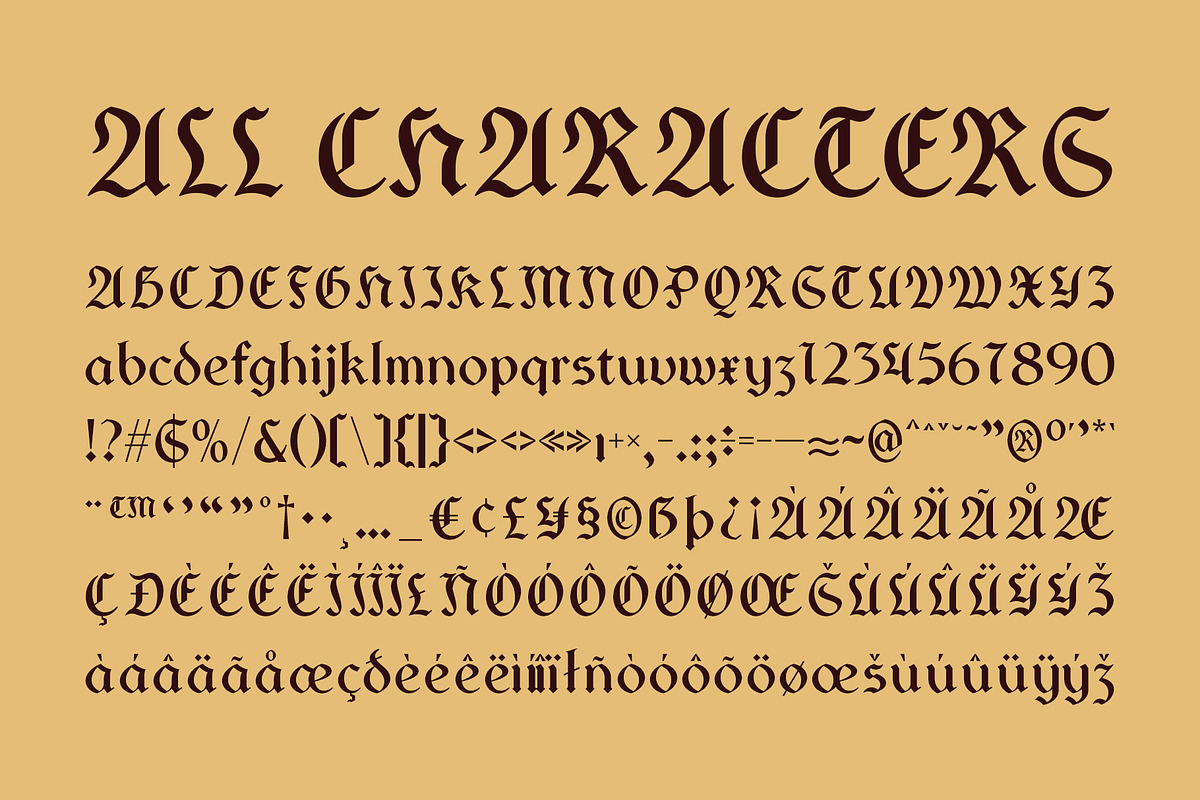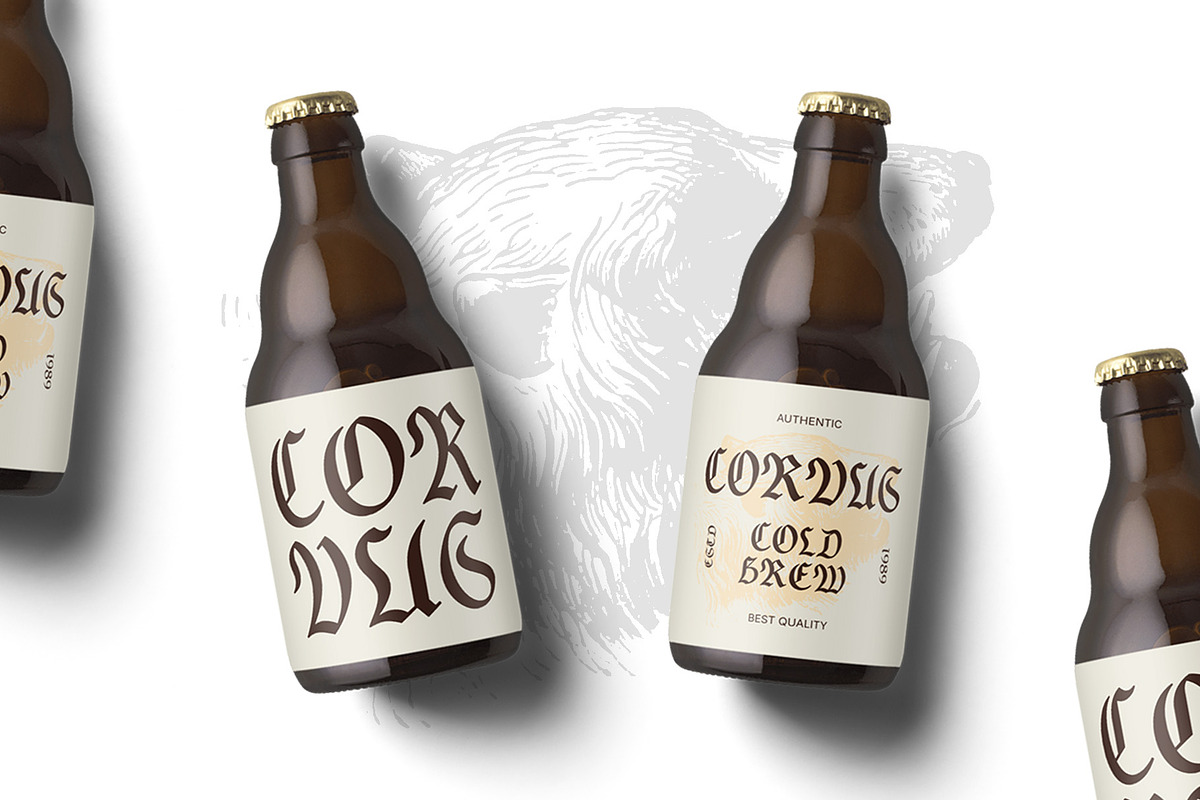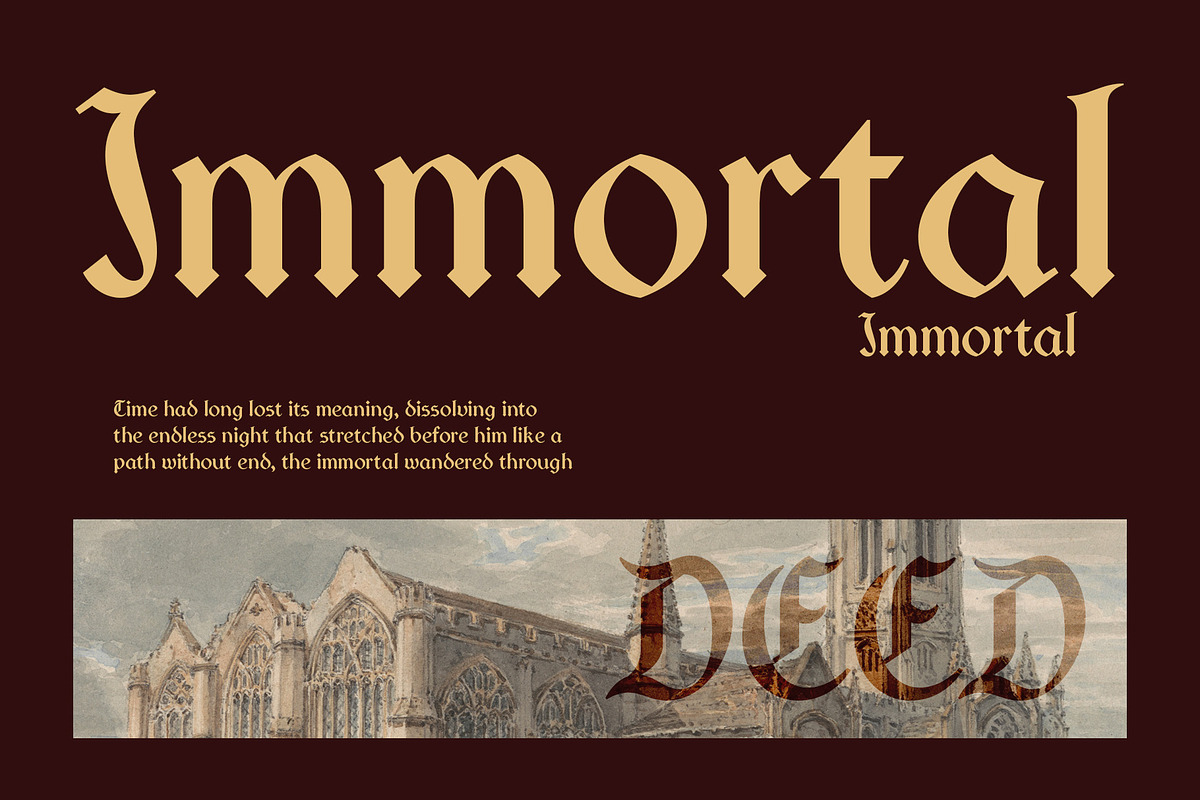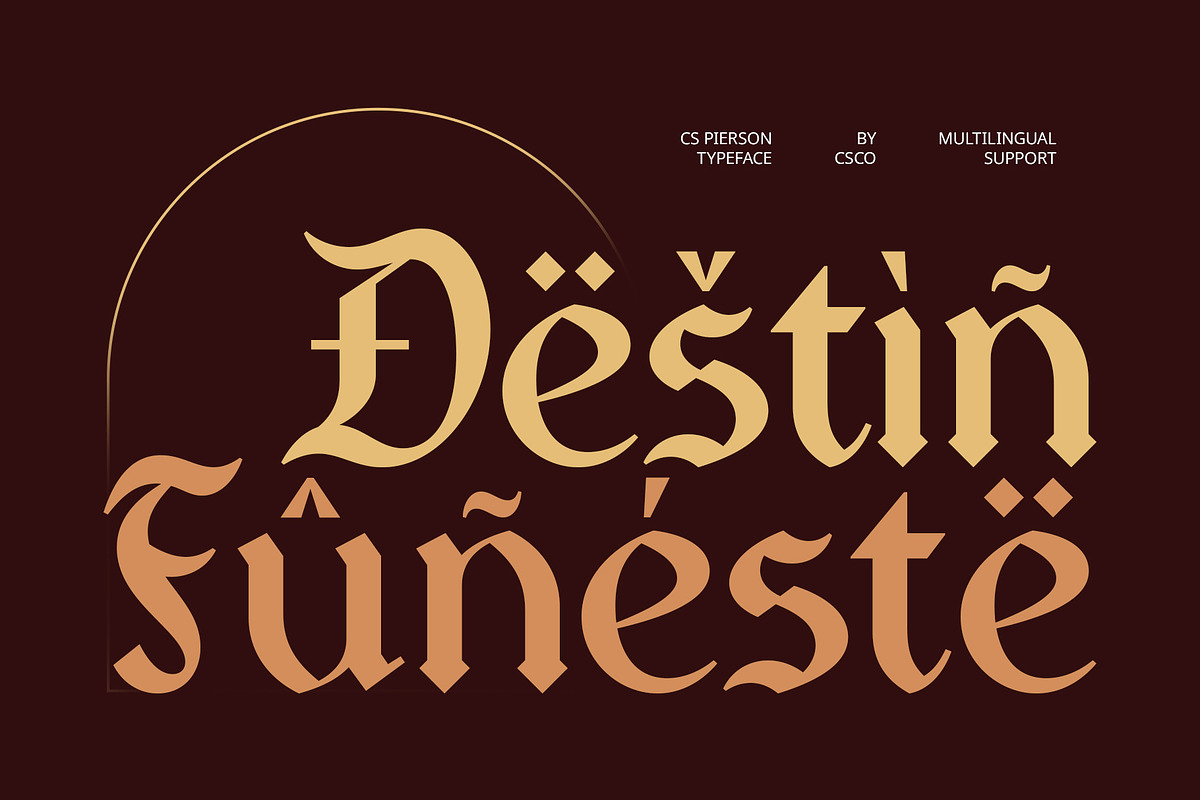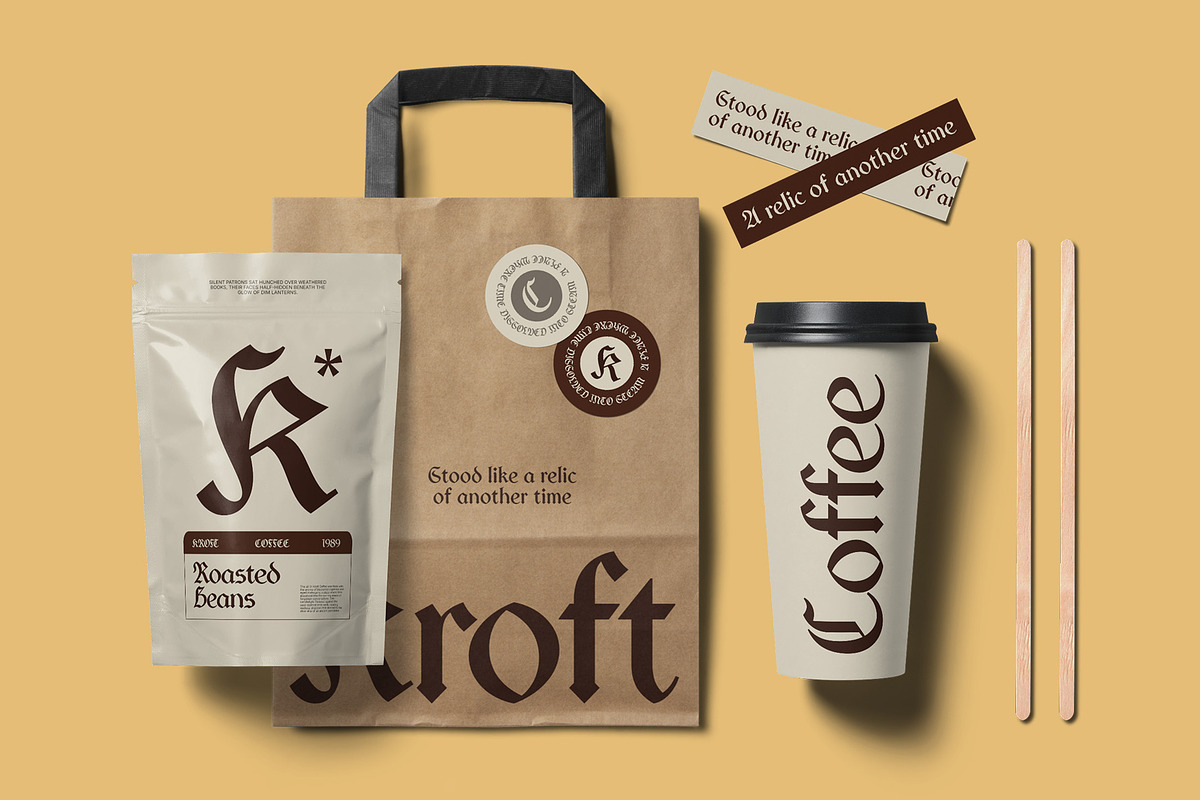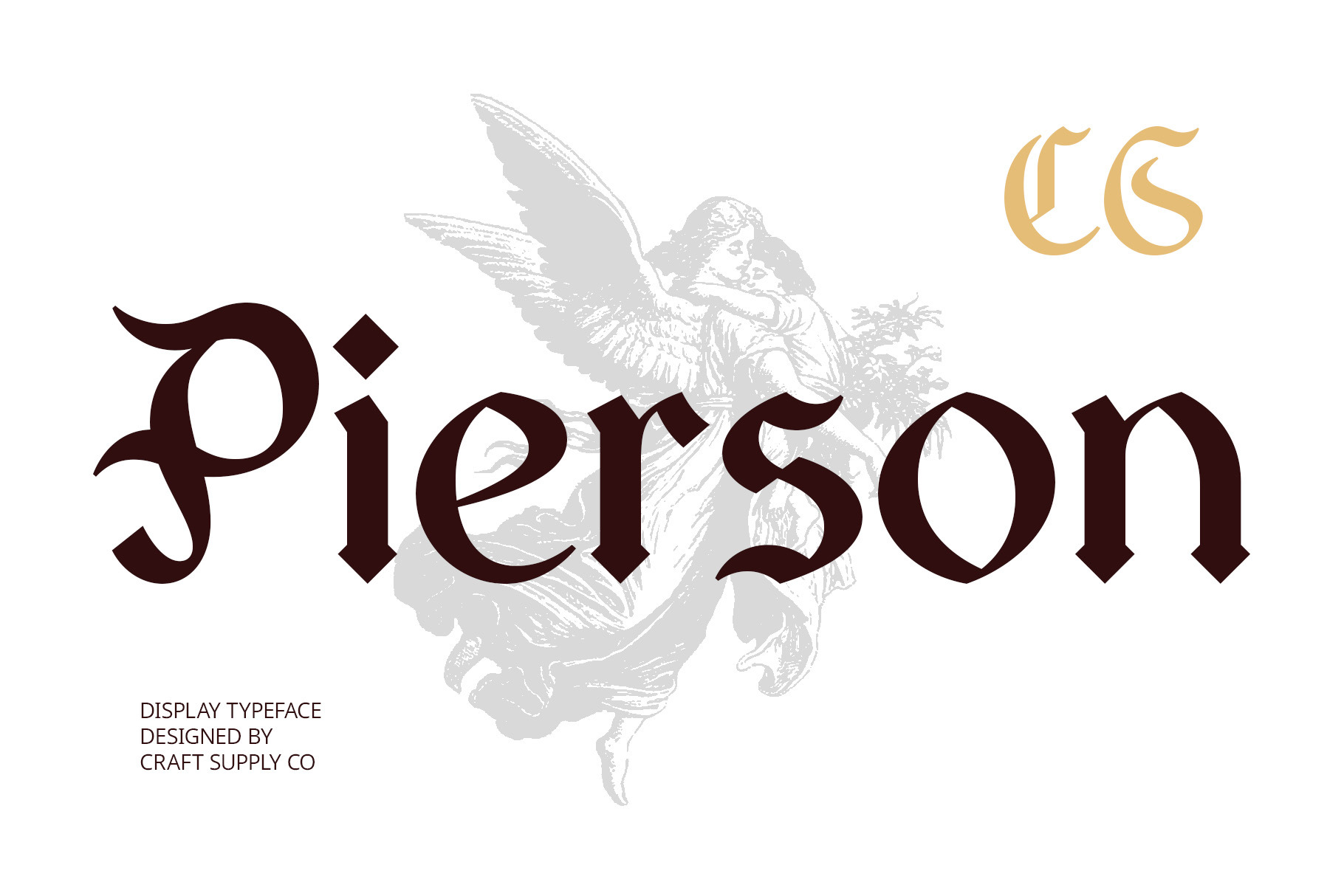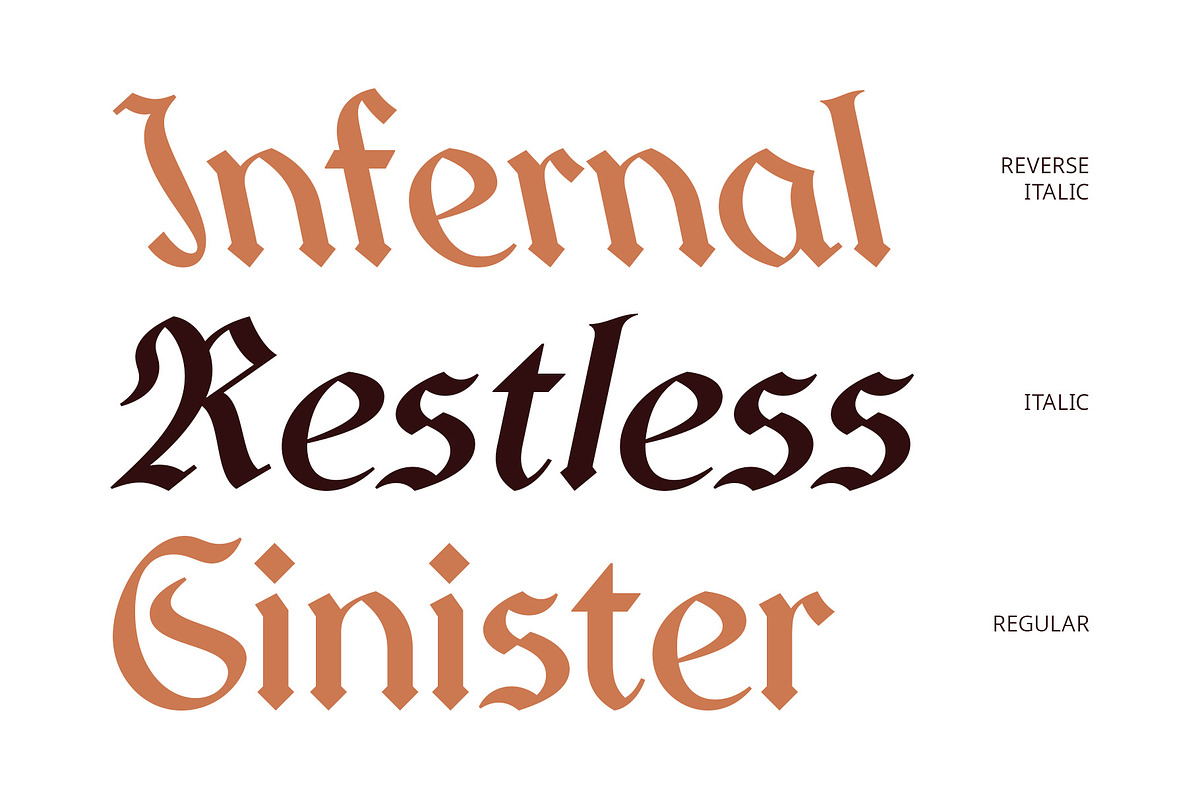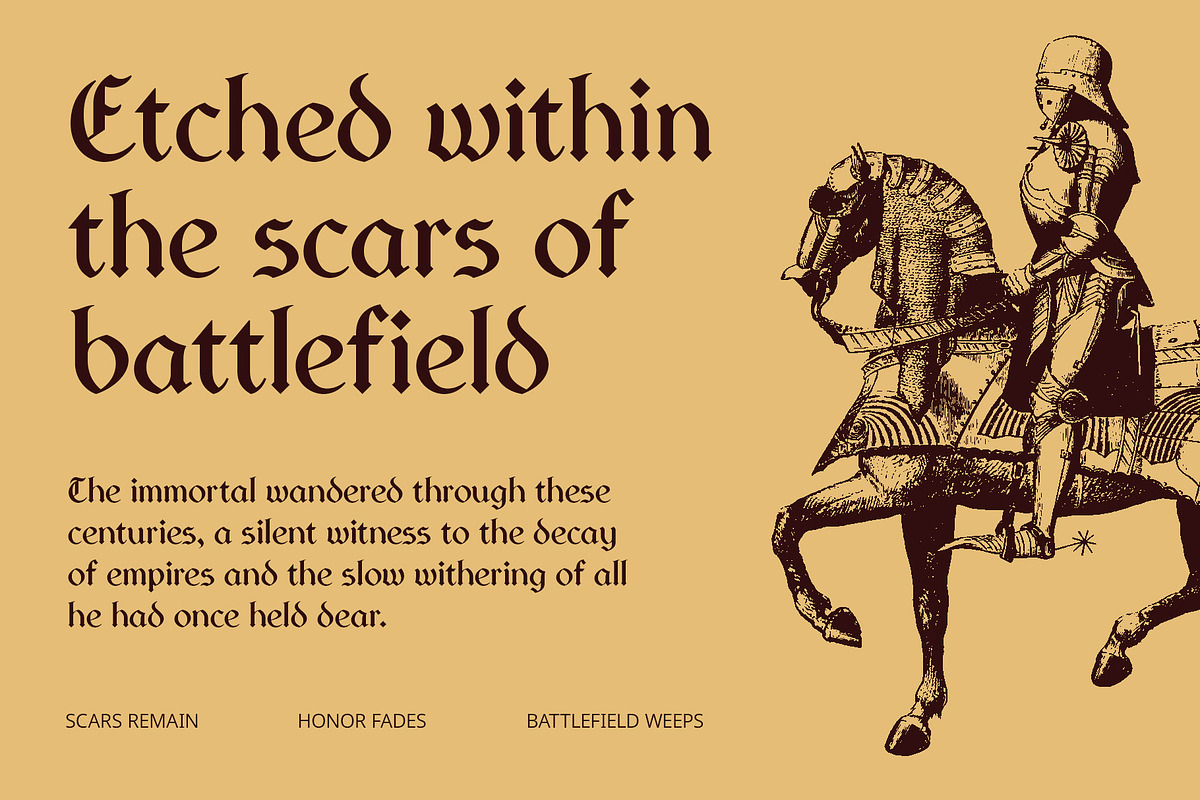
CS Pierson – Gothic Font
CS Pierson – Gothic Font: Where Classic Meets Contemporary
Modern Gothic Display Font CS Pierson is a modern Gothic display font that seamlessly blends traditional Gothic elements with a sharper, contemporary edge. Its bold letterforms, intricate details, and refined structure make it a powerful choice for designs that demand strong visual impact with a touch of sophistication.
Sharp, Bold, and Elegant Featuring sharp angles, high contrast, and well-balanced proportions, CS Pierson exudes a dramatic yet refined aesthetic. The font retains the essence of historic Gothic typography while embracing modern minimalism, making it versatile for both classic and avant-garde designs.
Ideal for Luxury and Editorial Design With its striking presence and elegant structure, CS Pierson is perfect for luxury branding, high-end packaging, and sophisticated editorial layouts. Its distinct Gothic style adds an air of mystery and exclusivity, enhancing the visual appeal of premium designs.
Perfect for Music Posters and Creative Projects CS Pierson’s bold and expressive form makes it a great choice for music posters, album covers, and creative branding. Whether for dark aesthetics, alternative themes, or sophisticated modern visuals, this font delivers a powerful and captivating look that commands attention.